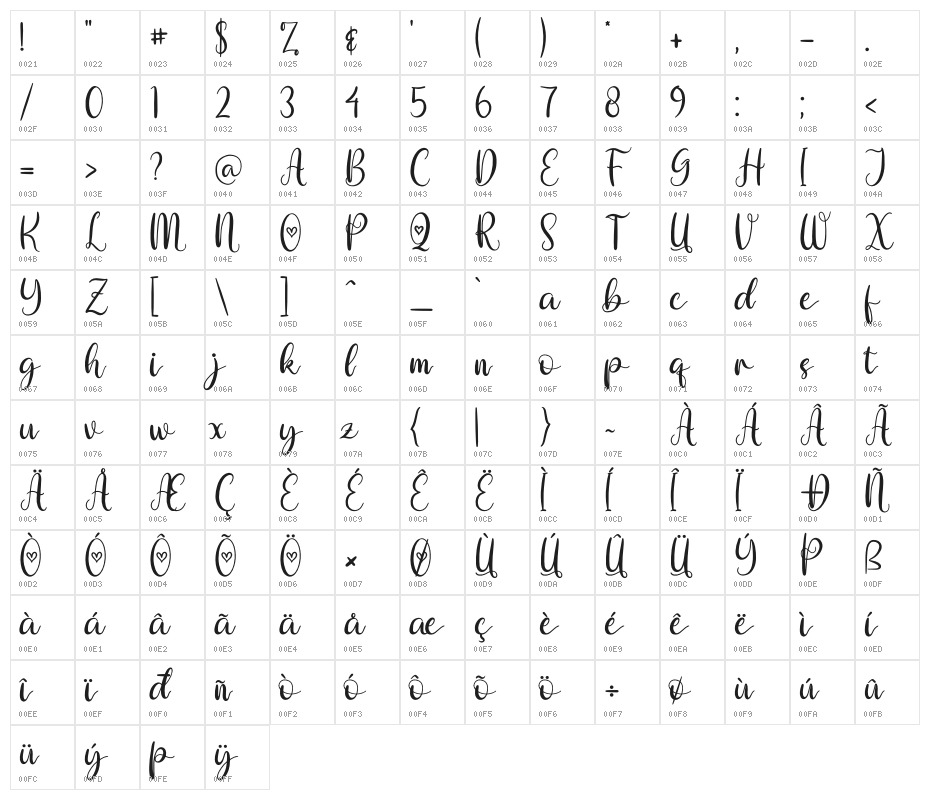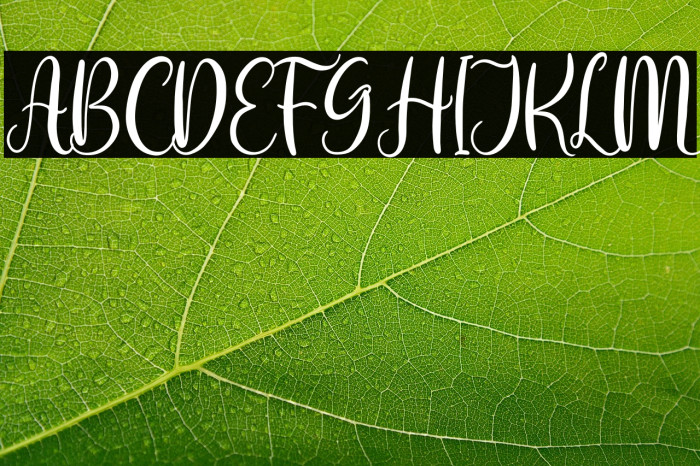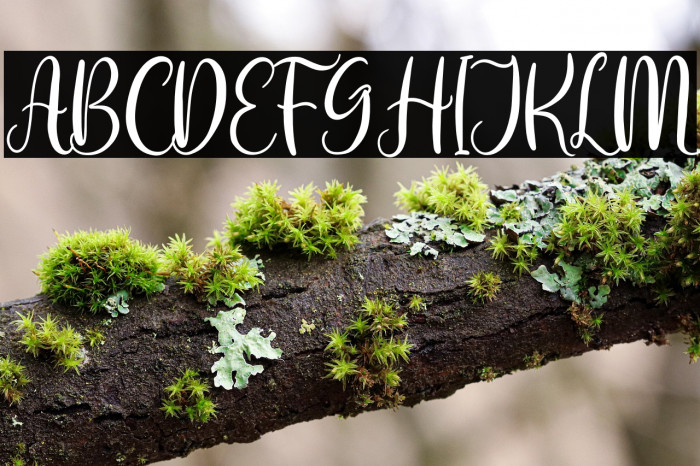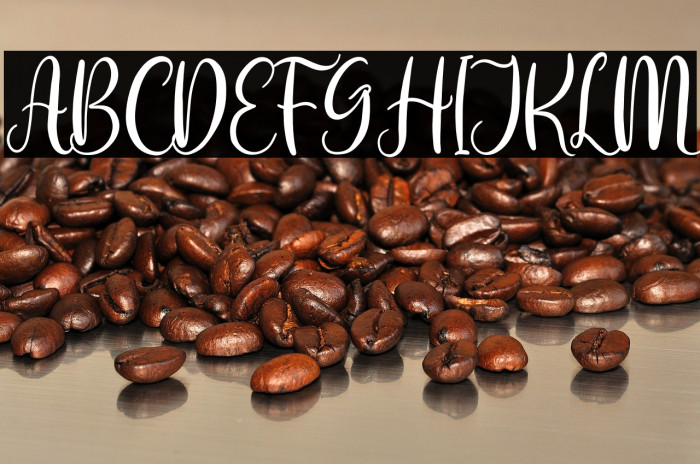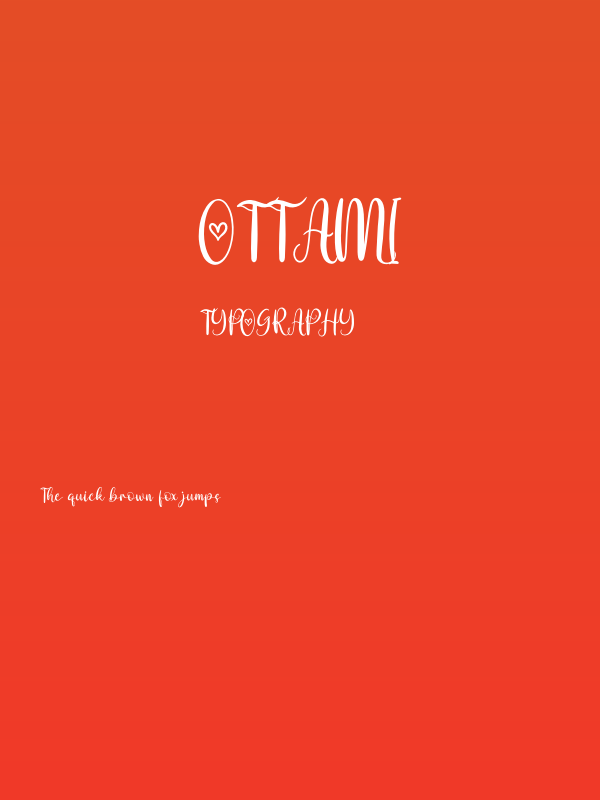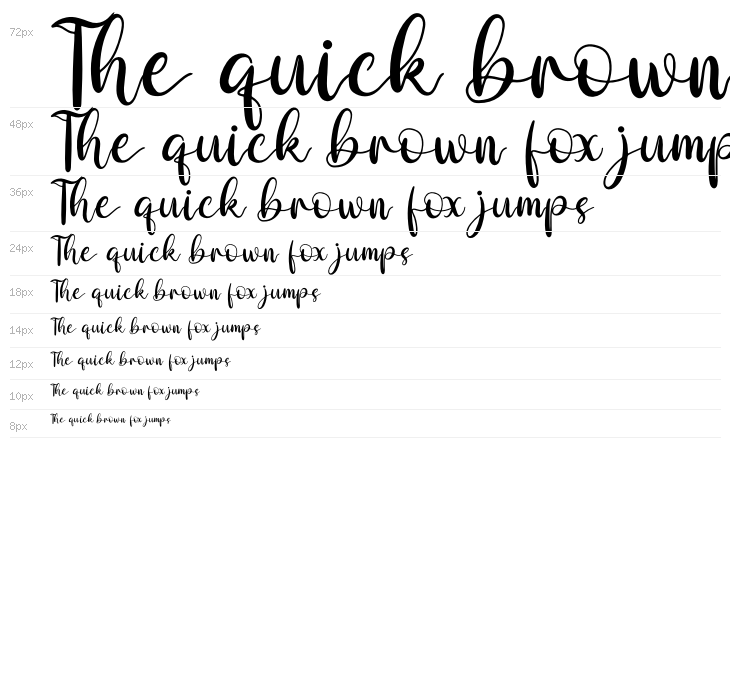
Ottami Font
Ottami Description
This font features a playful and elegant script style with flowing, connected letters that exude a sense of whimsy and charm. The uppercase letters are tall and slender, with unique flourishes that add a decorative touch. The lowercase letters maintain a consistent flow, enhancing readability while retaining a hand-drawn aesthetic. The numerals are bold and slightly rounded, complementing the overall style. Special characters are creatively designed, with some incorporating heart motifs, adding to the font's playful nature. This font is perfect for projects that require a personal, artistic touch.
| Use Case | Logos, Invitations, Social Media |
| Proposed Projects | Ideal for wedding invitations, greeting cards, branding, and social media graphics. |